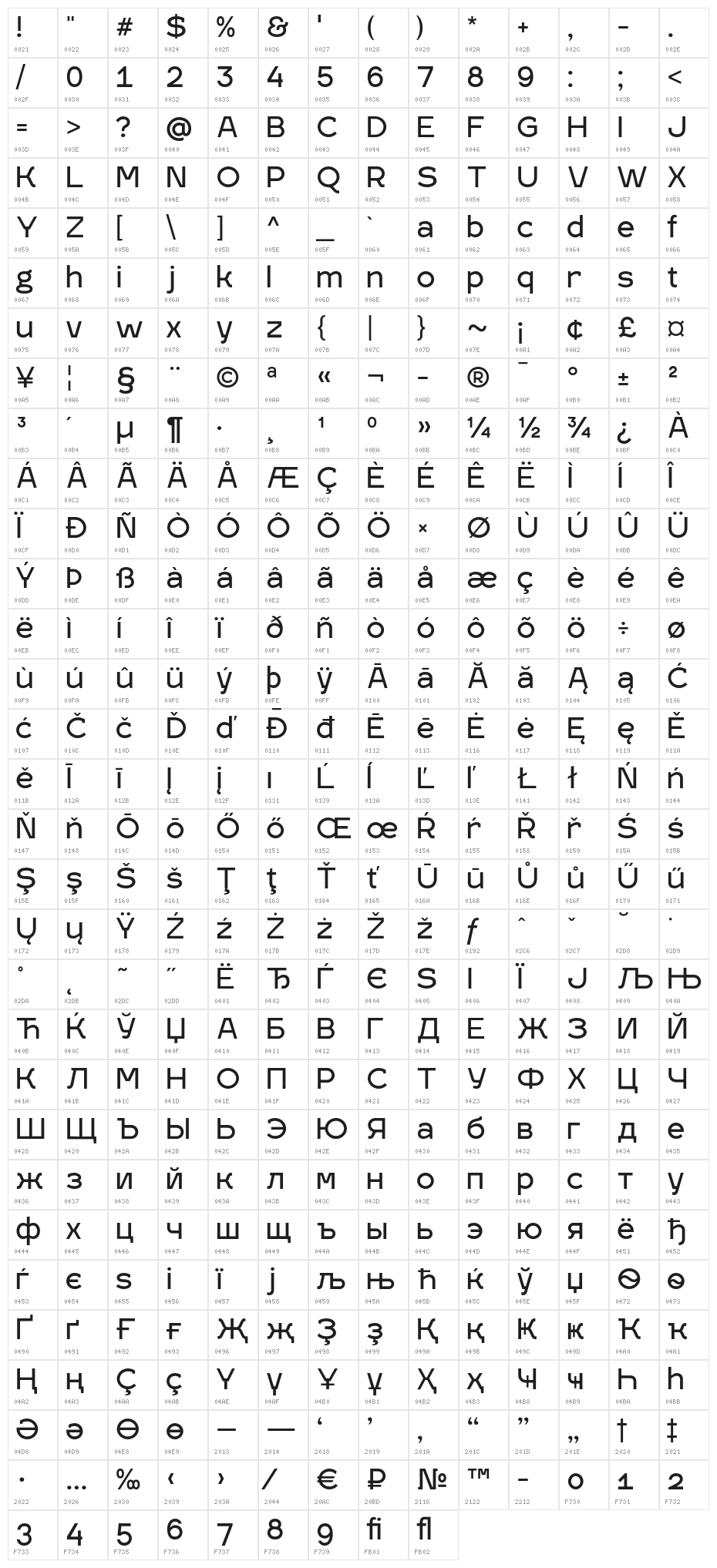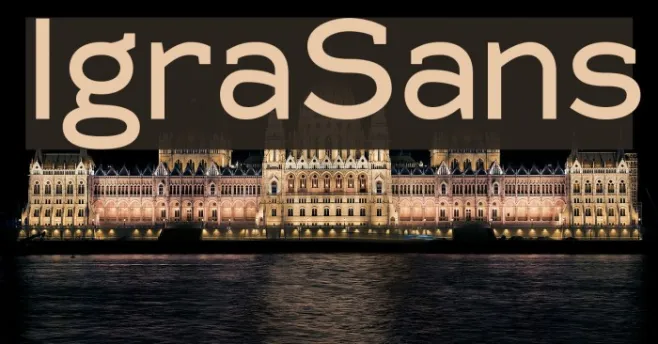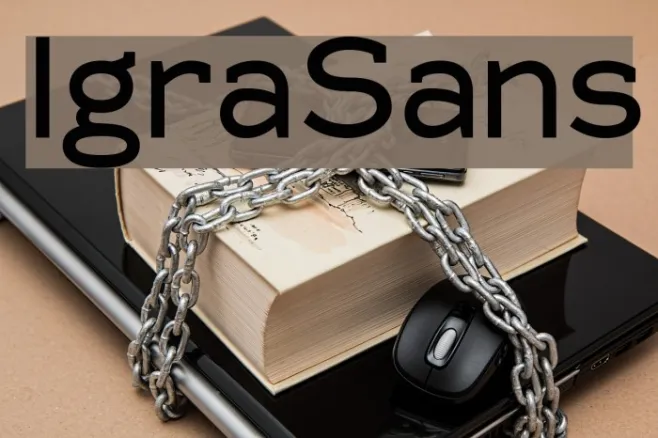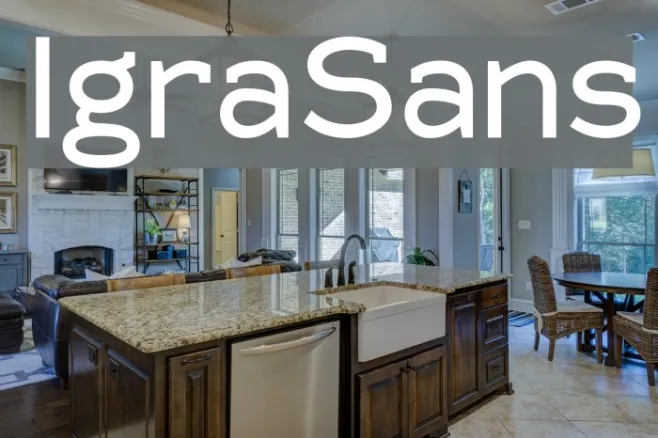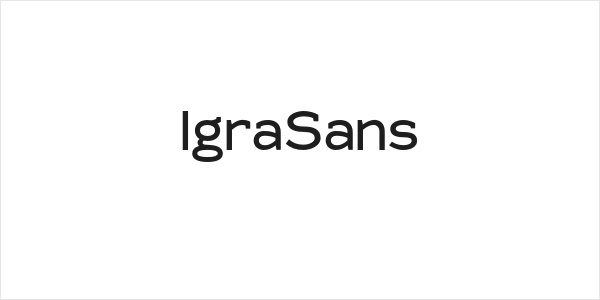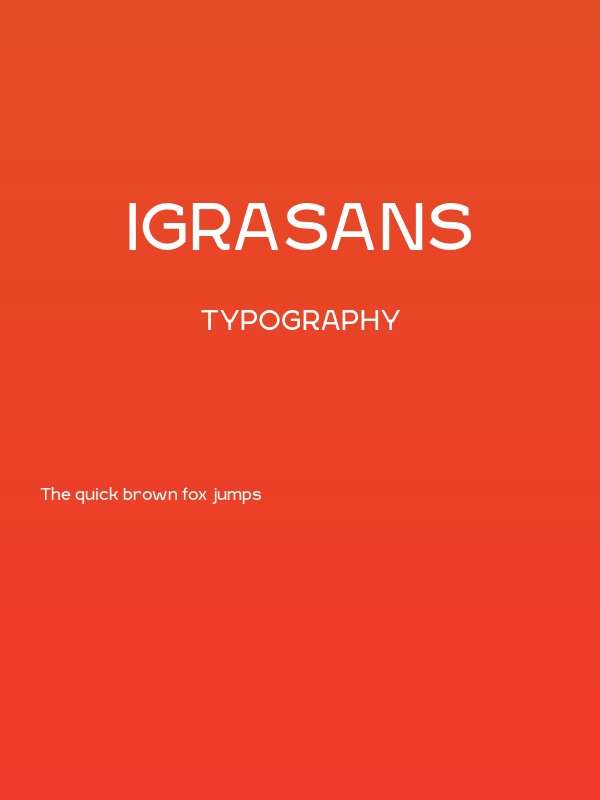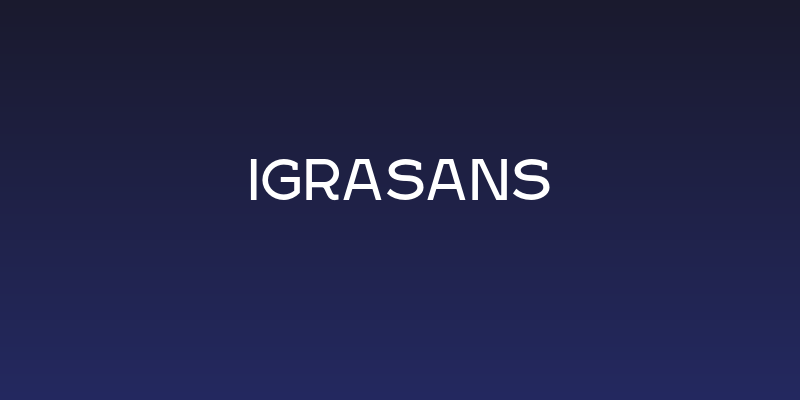
IgraSans Font
IgraSans Description
This font features a clean and modern sans-serif design, characterized by its geometric shapes and balanced proportions. The letters are uniform in width, providing a harmonious and consistent appearance. The uppercase and lowercase characters are well-defined, with a slight curvature that adds a touch of softness to the overall structure. The numerals are clear and legible, making them suitable for various applications. Special characters are included, maintaining the same stylistic integrity as the alphabetic characters. The font's simplicity and clarity make it versatile for both digital and print media.
| Proposed Projects | Ideal for branding, web design, advertising, and editorial projects due to its clarity and modern appeal. |